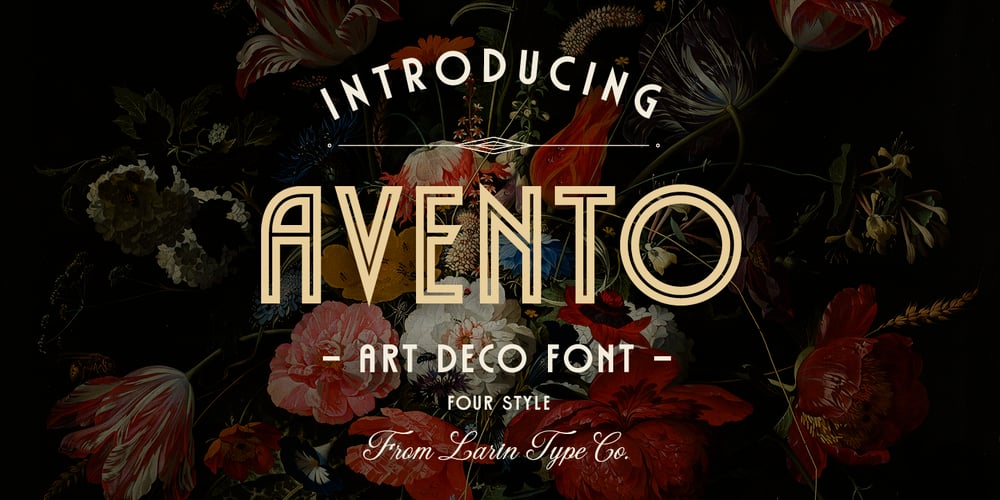
Avento
Avento font
Avento Font Family was designed by Pavel Larin and published by Larin Type Co. Avento contains 4 styles and family package options. Avento this is a wonderful vintage font designed in the Art Deco style. With it, you will be transported to the era of the 20s-60s. it will add charm, estetica and create a unique atmosphere of this time in your design project. this font includes four styles : regular, InLine, thin outline and bold outline, as well as it has many alternates that you can use to play with the dynamics of the font. This font is easy to use and has OpenType features. Following international .